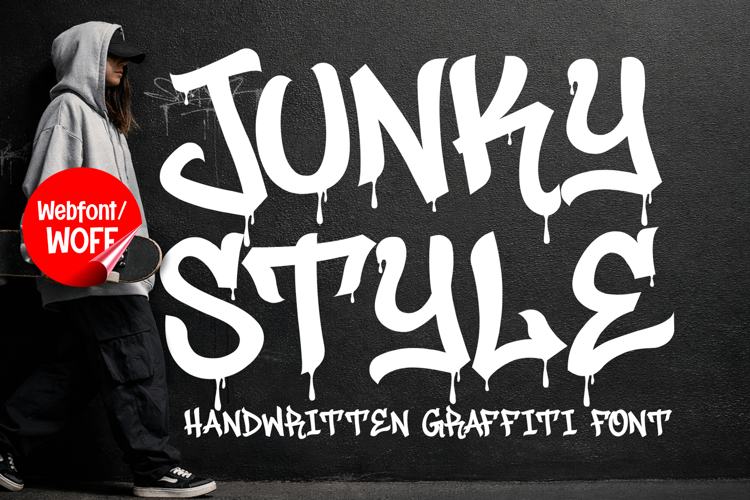
Junky Style | Webfont Dripping Handwritten for Websites
Junky Style Webfont is a modern handwritten typeface designed to bring expressive personality and urban character into digital environments. Combining smooth monoline strokes with dynamic dripping effects, this font delivers a distinctive visual identity that stands out in contemporary website design.
In today’s digital landscape, typography plays a major role in shaping how users experience a website. Junky Style is crafted specifically for display purposes, making it highly effective for headlines, hero sections, landing pages, banners, and promotional areas. Its handwritten style creates a natural and engaging tone, while the dripping elements add a bold and artistic edge that instantly captures attention.
This webfont includes two styles: Regular and Dripping. The Regular style features clean monoline handwritten letterforms that are easy to read and suitable for structured layouts. The Dripping style introduces expressive paint-like details, adding visual movement and a more energetic appearance. Designers can use these styles separately or combine them to create layered and visually dynamic compositions within web layouts.
The font is ideal for creative industries and modern digital projects. It works well for streetwear websites, music platforms, portfolios, creative agencies, lifestyle brands, and promotional landing pages. Its expressive design helps communicate strong visual identity and adds character to brand messaging.
One of the key strengths of Junky Style in web design is its ability to function as a focal point. When used in headlines, it naturally draws attention and guides users through the layout. This makes it highly effective for call-to-action sections, featured content, and promotional messaging. Its bold appearance ensures that important information stands out clearly.
Despite its artistic style, Junky Style maintains readability when used at appropriate display sizes. This balance between style and clarity makes it a reliable choice for web typography. For optimal results, it can be paired with clean sans-serif fonts for body text, creating a clear visual hierarchy and improving overall user experience.
The dripping effect adds a sense of motion and depth to static layouts. When combined with modern web interactions such as hover effects, animations, or scrolling transitions, the font enhances visual engagement and creates a more immersive browsing experience. This makes it especially suitable for interactive and visually driven websites.
Junky Style also adapts well to different design directions. It can be used in bold, high-contrast layouts or combined with minimal design elements for a balanced composition. The handwritten nature of the font adds a human touch, while the dripping details introduce a modern urban aesthetic.
Overall, Junky Style Webfont is a versatile and expressive display typeface that enhances digital design with character and creativity. It transforms simple text into visually engaging elements, helping websites stand out in a competitive digital space. With its combination of handwritten flow and dripping detail, it offers a unique approach to modern web typography.